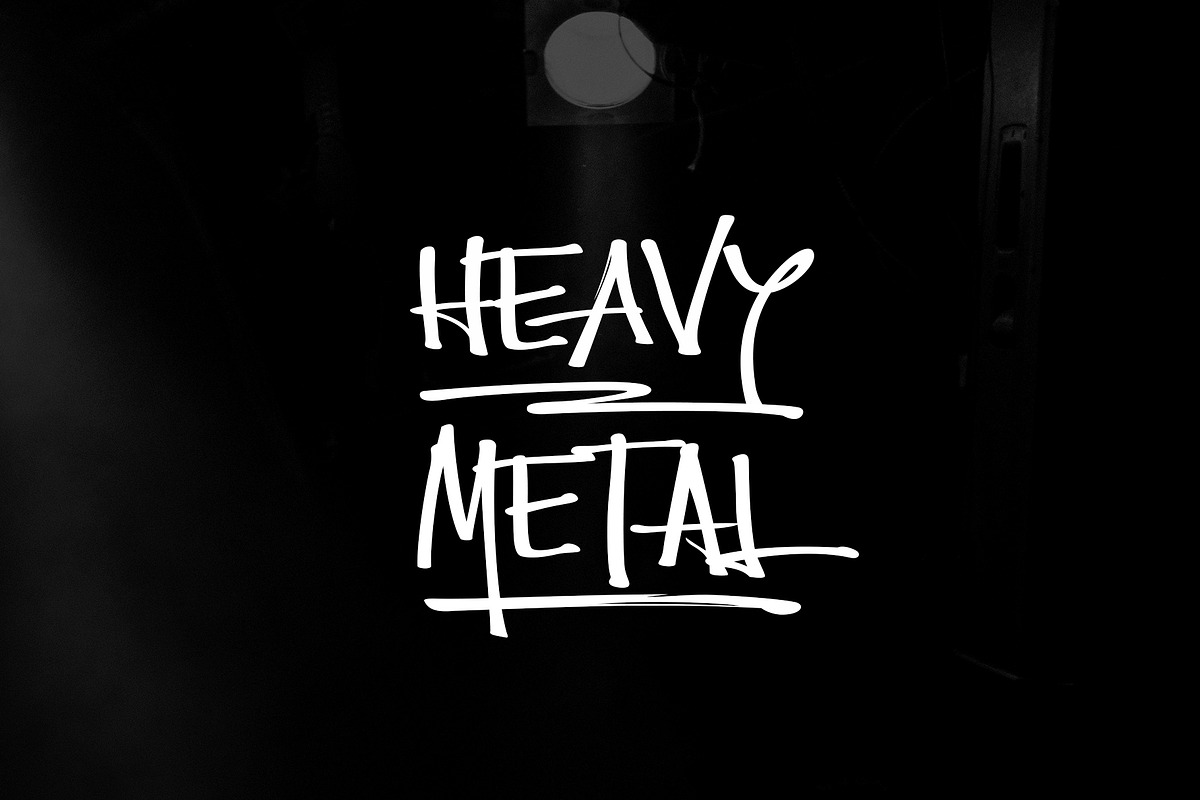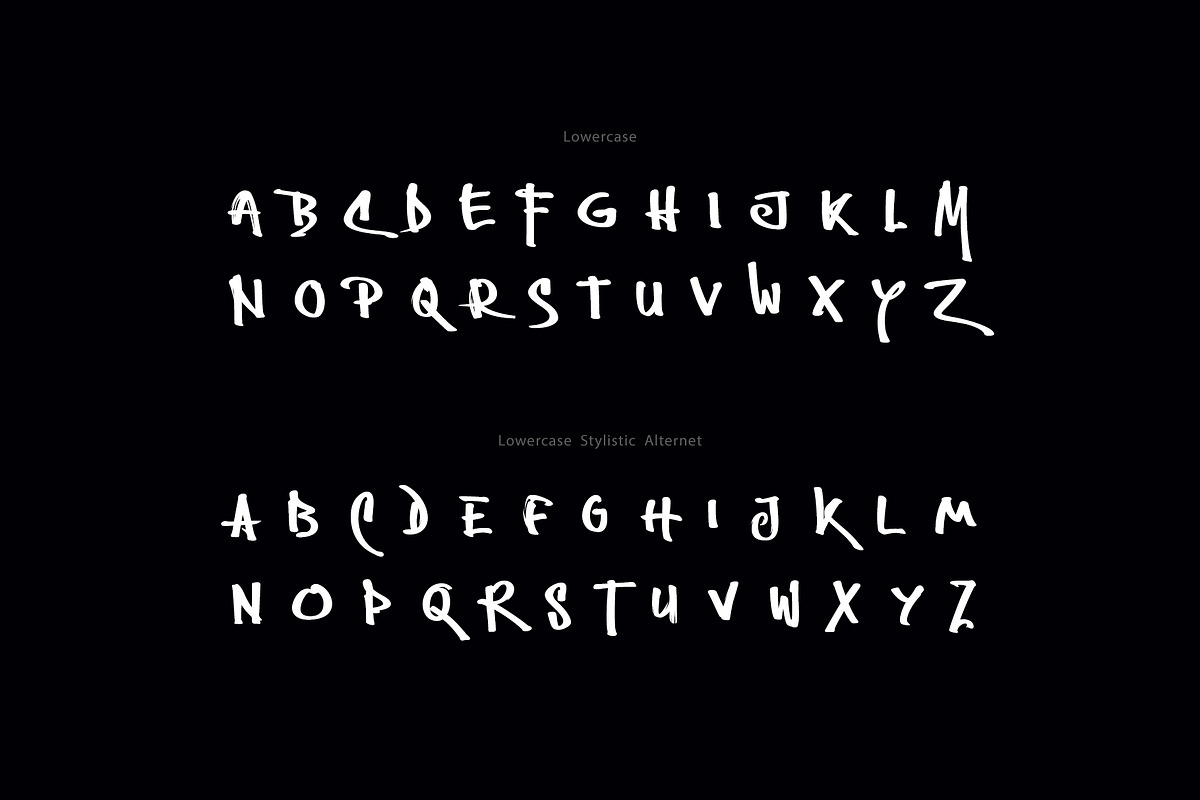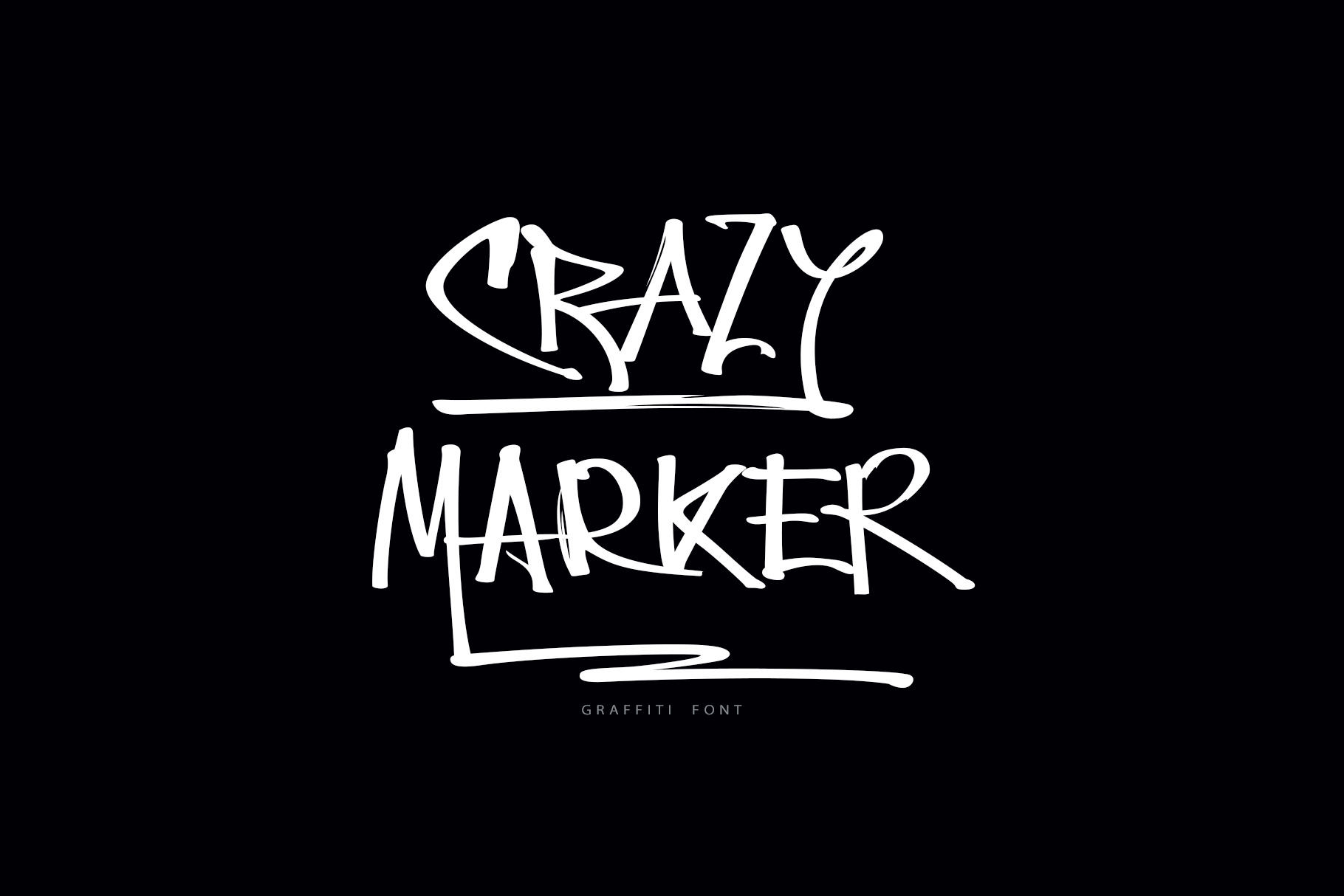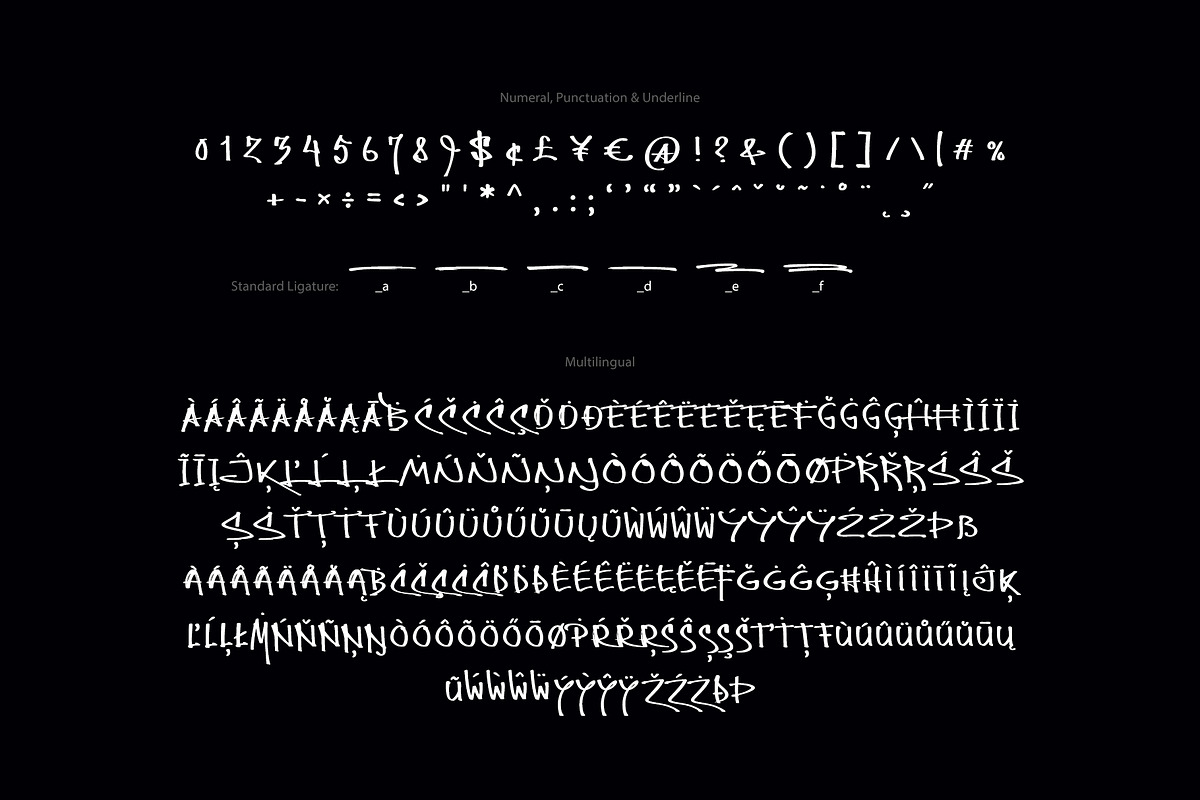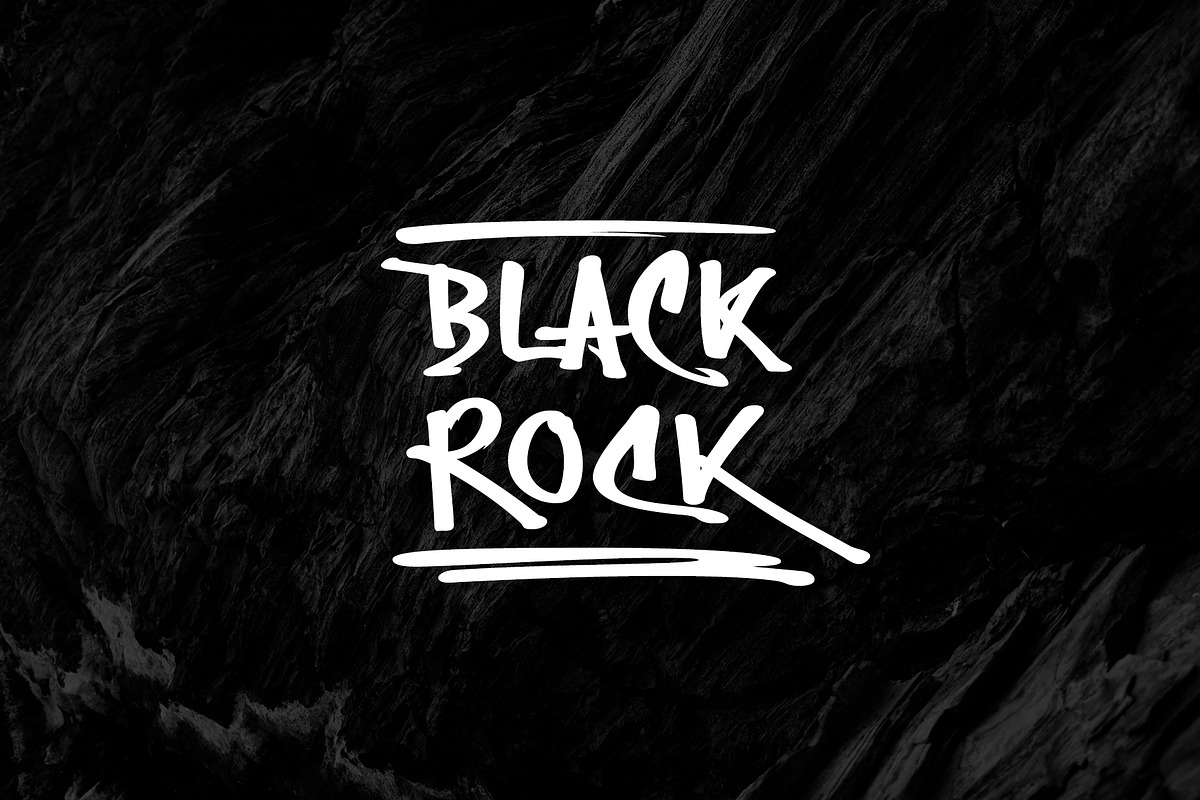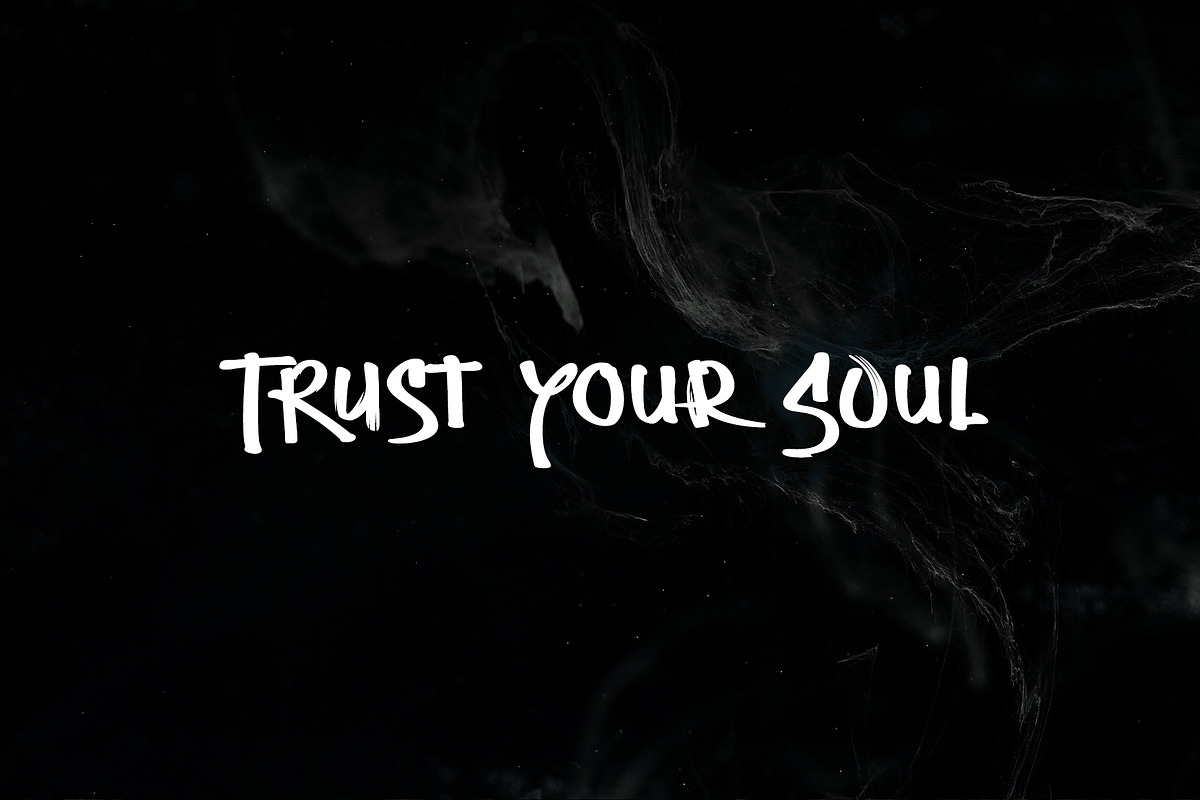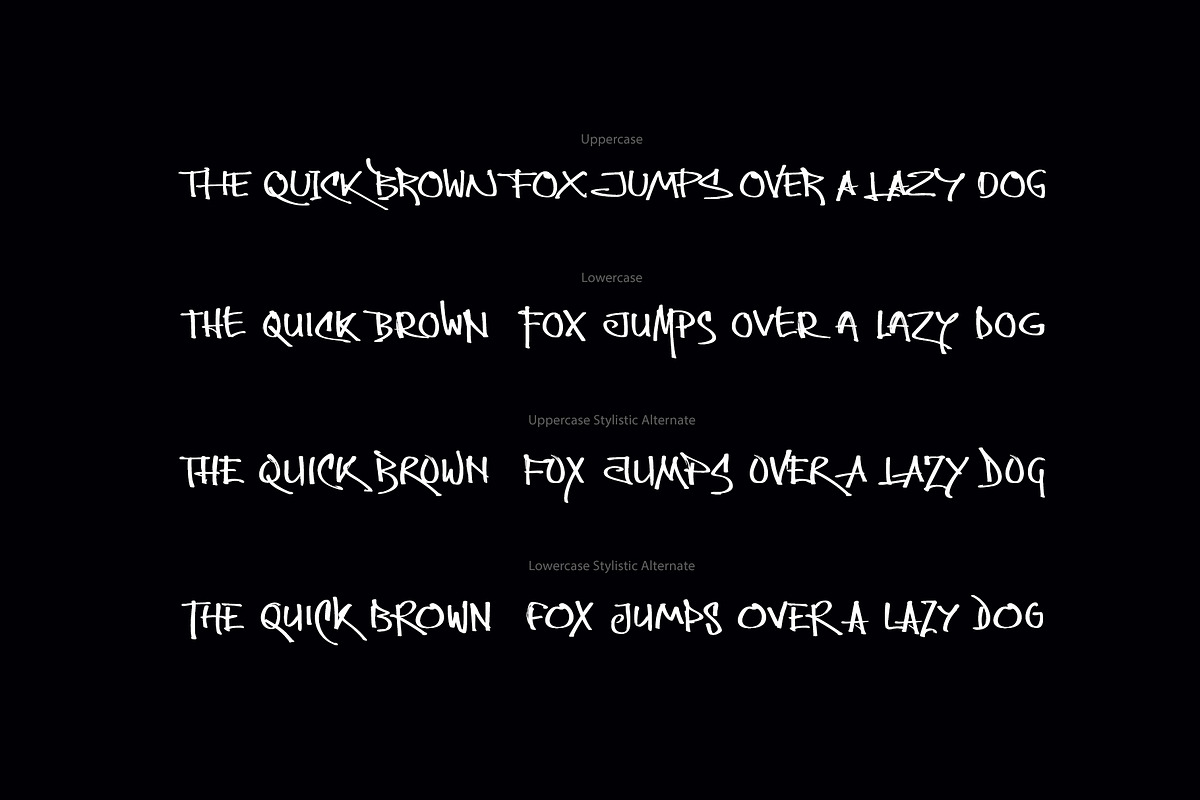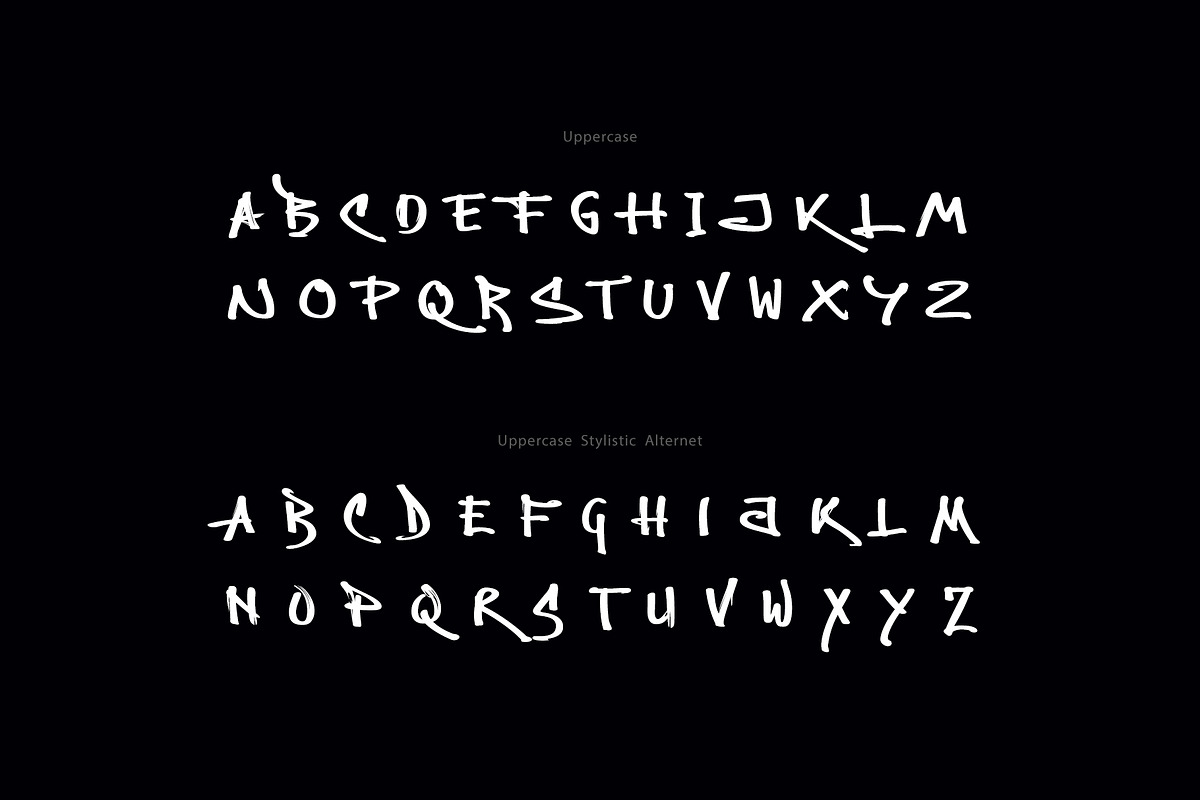
Crazy Marker Graffiti Font
Crazy Marker is a nice handwritten graffiti font. It gives a complete authentic feel on your text.
Total 376 glyphs available including alphabets, numerals, punctuation, stylistic alternate and multilingual characters.
Light and Regular version are added to make variation on your typography.
To type underline strokes press: _a, _b, _c etc. (keep the 'ligature' button on)